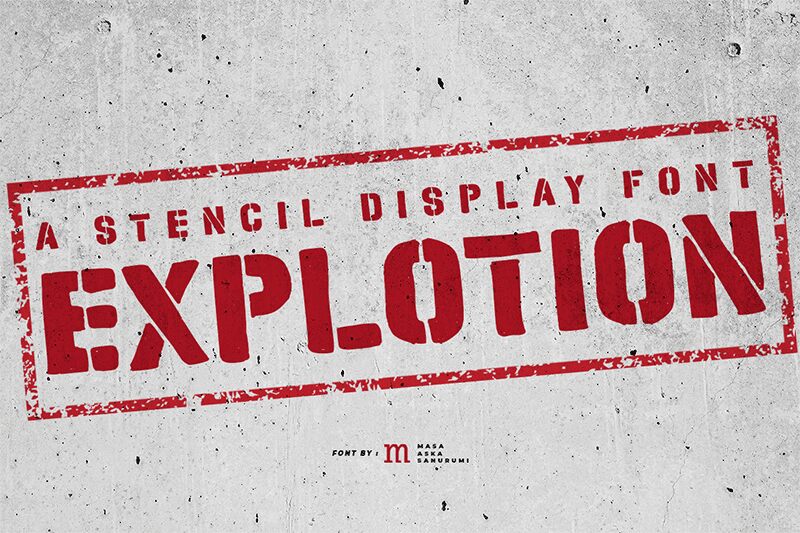
Explotion stands out with its authoritative presence, crafted by Masa Aska Sanurumi to evoke the disciplined essence of military style. The font's bold stance commands attention, making it an ideal choice for projects that require a touch of strength and precision. Its sturdy form and impactful character create a sense of immediacy and action, perfectly suited for branding, poster design, or any context where a statement is to be made with conviction.
Explotion's assertive appearance ensures that your message is not just seen but felt with the weight of its character.